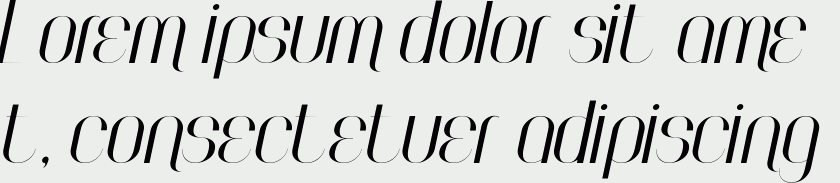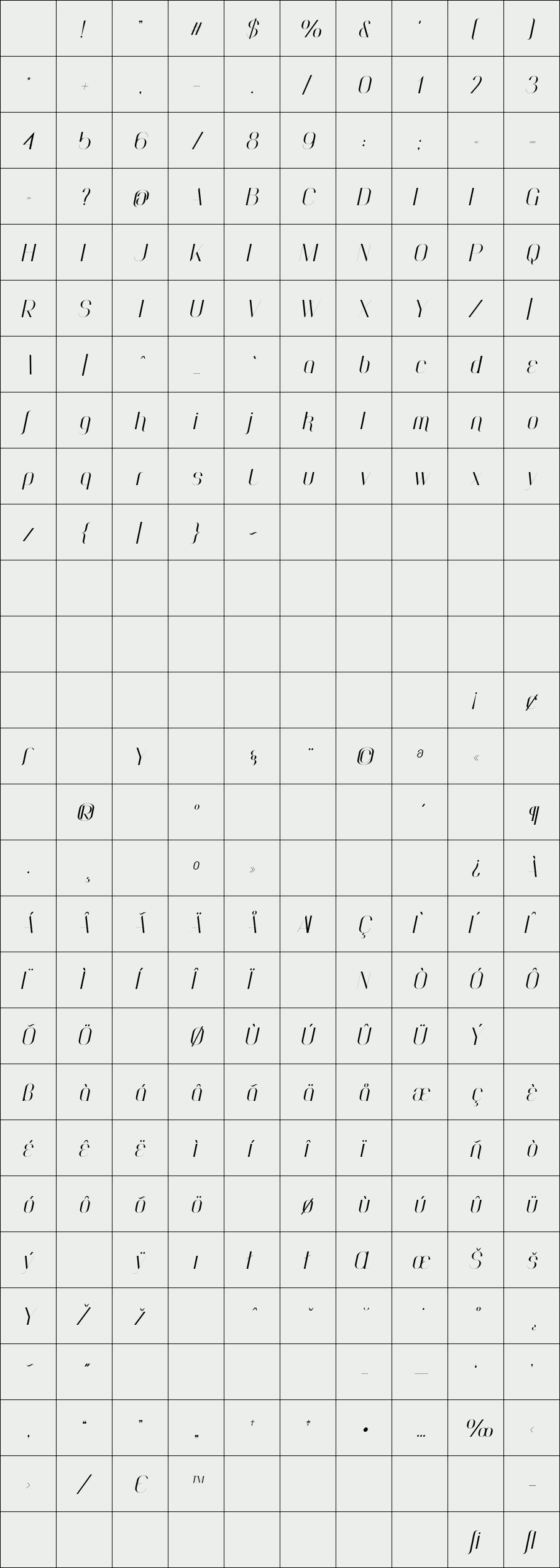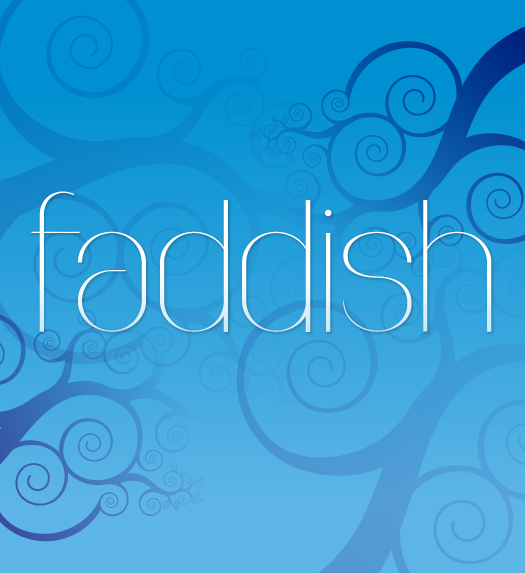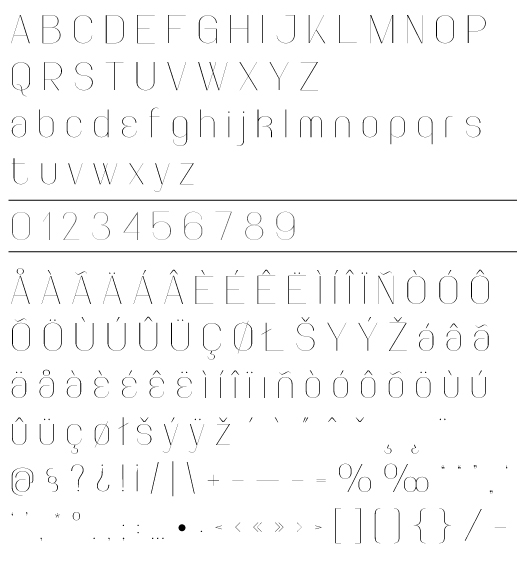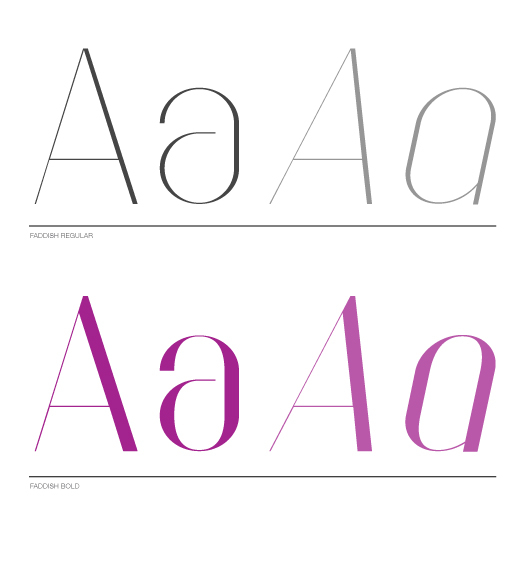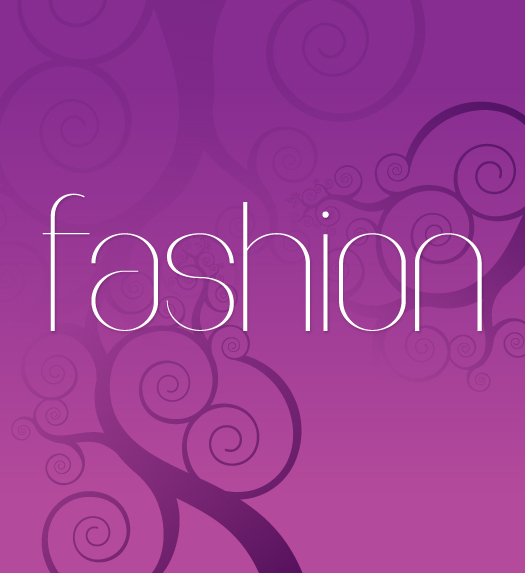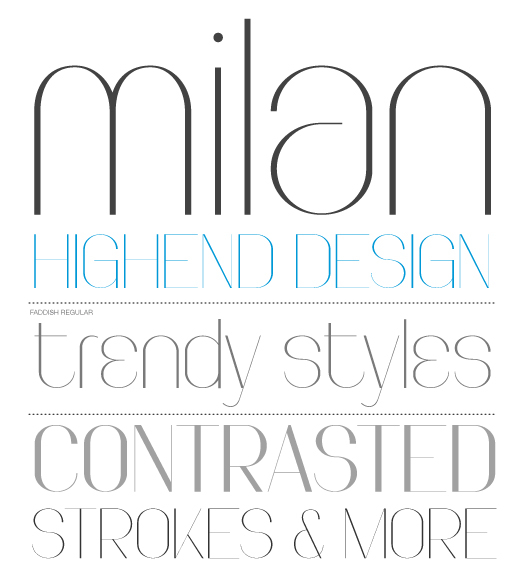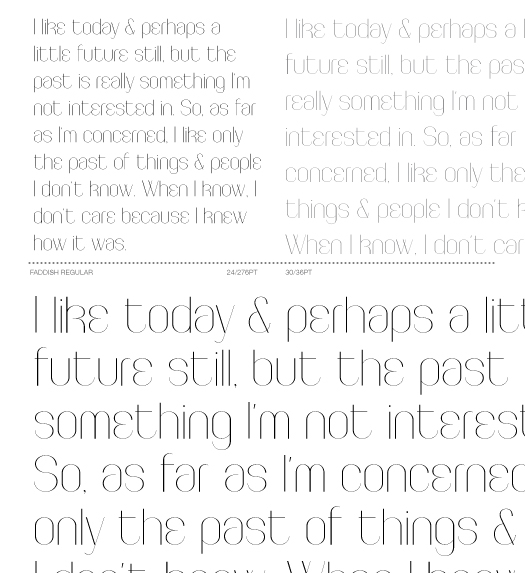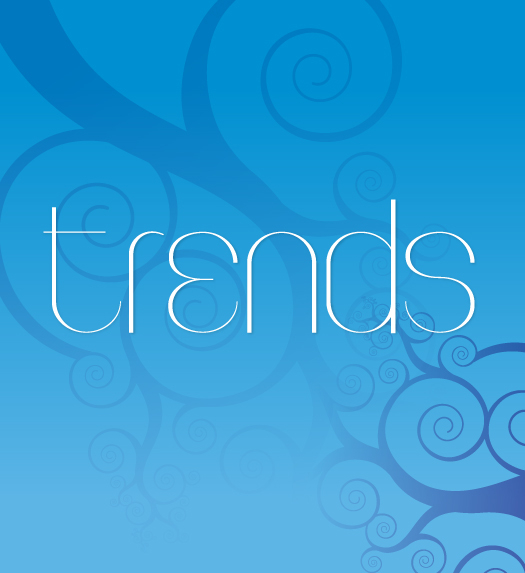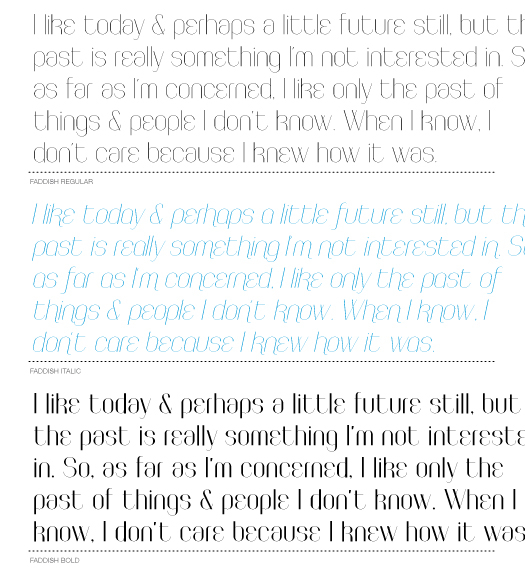
Faddish
/ Faddish bold italic
Faddish was created as a mix between a sans serif style and the high contrast didots. The resulting design is a contempory, condensed sans serif with a very high stroke contrast.